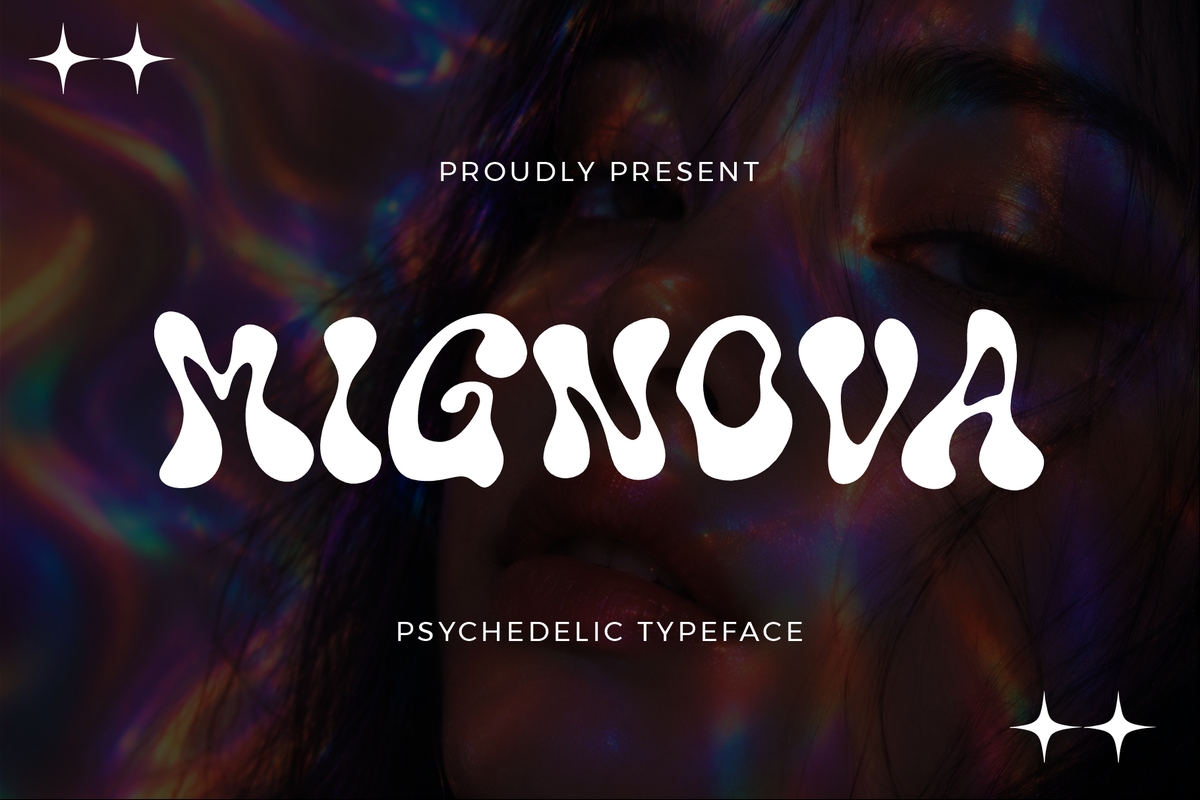
Mignova
Mignova, a psychedelic wavy groovy retro font inspired by the vibrant visual culture of the 60s and 70s era. Designed with fluid organic curves, melting shapes, and funky retro aesthetics, Mignova brings hypnotic energy and artistic expression into modern typography compositions. Mignova captures the spirit of psychedelic posters, groovy music culture, retro festivals, vintage album artwork, and colorful artistic movements. The flowing wavy letterforms create a dreamy visual rhythm filled with